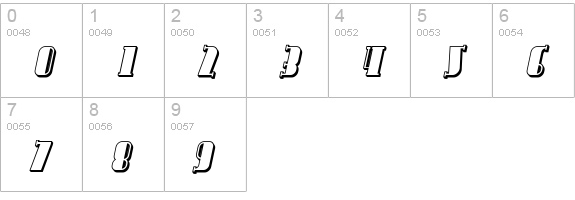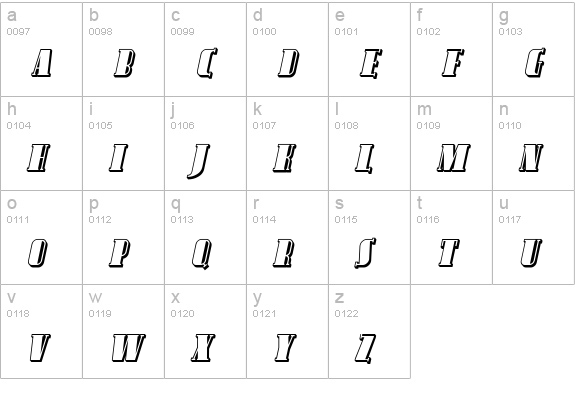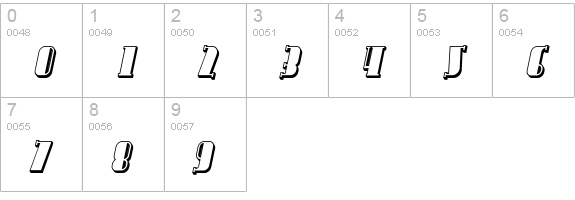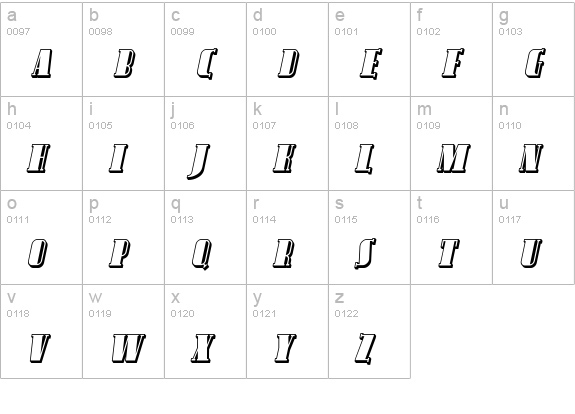
Avondale SC Shaded Italic is a distinctive, italic variant in the Avondale typeface family \xE2\x80\x94 well suited to design and typography projects.
Avondale SC Shaded Italic is a stunning and elegant font that effortlessly combines a sense of sophistication with a touch of playfulness. The italic style adds a dynamic flair to your text, making it perfect for adding emphasis and style to any design project. The shaded effect gives the font a unique and eye-catching appearance, making it stand out from the crowd. This versatile font is ideal for a wide range of design projects, from invitations and posters to logos and branding. Its classic yet modern look makes it a great choice for both print and digital designs. Whether you're designing a wedding invitation or a social media graphic, Avondale SC Shaded Italic is sure to make a statement. Best of all, Avondale SC Shaded Italic is completely free to download at FontsMarket.com. So why wait? Add this beautiful font to your collection today and elevate your designs to the next level.